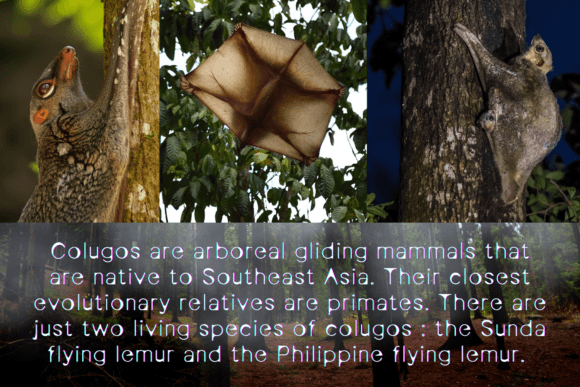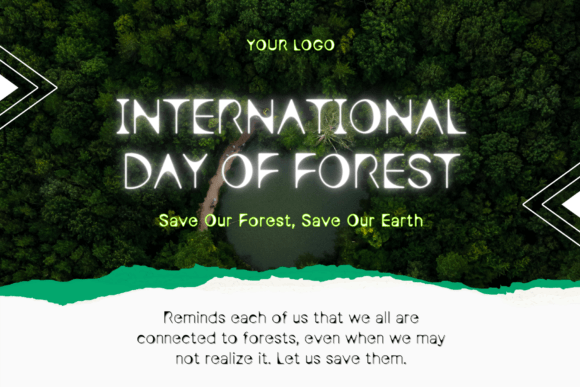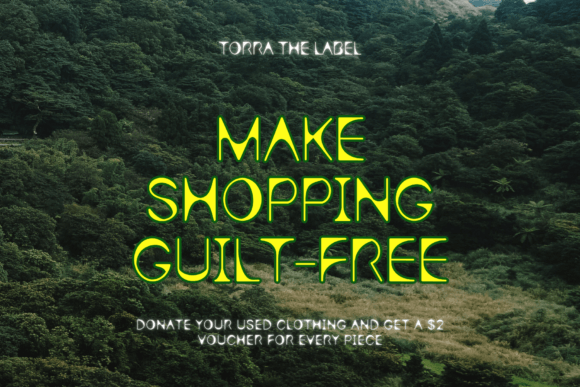
Introduction to Colugo Membrane Font
COLUGO Membrane is a typeface that represents the characteristics of animals and insects.
It is inspired by the distinctive membranes of flying squirrels, a unique feature that allows mammals to fly, which are wings attached between their front and back legs Of course, these characteristics come together to create a beautiful typeface for you to use in your creations.